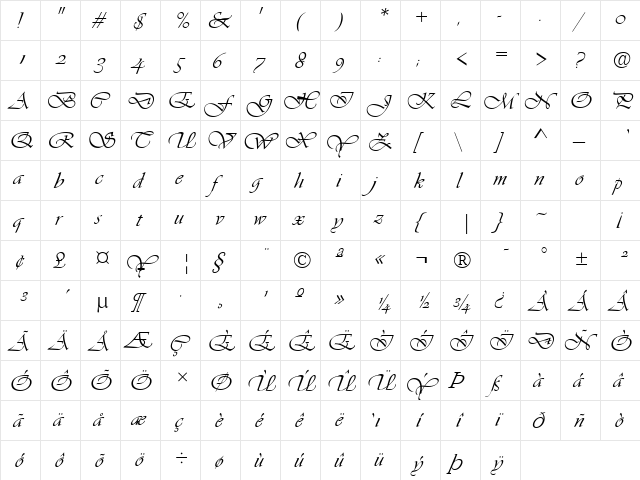
Vivante-DTC ITALIC Font Preview
Vivante-DTC ITALIC
Design Context for Vivante-DTC Typeface
Vivante-DTC is a composed and adaptable typeface that performs quietly and consistently across a wide range of design contexts. The dynamic lean of this cut emphasises speed and emphasis in any layout.